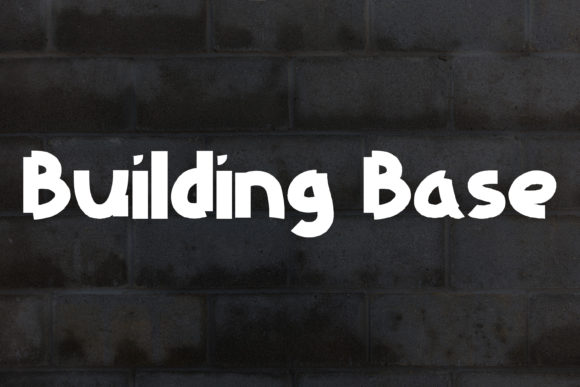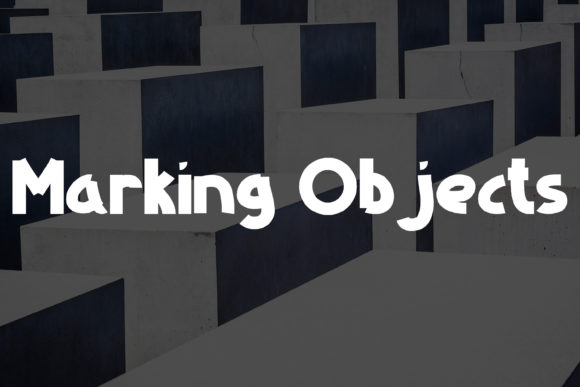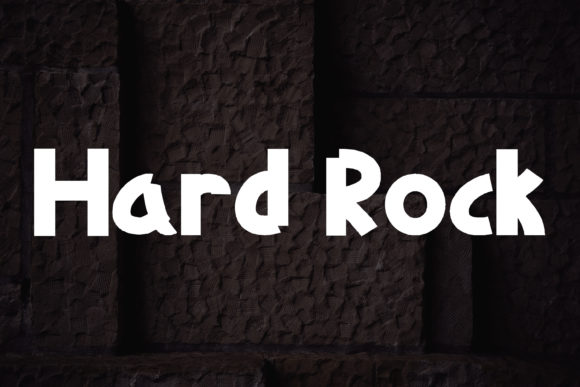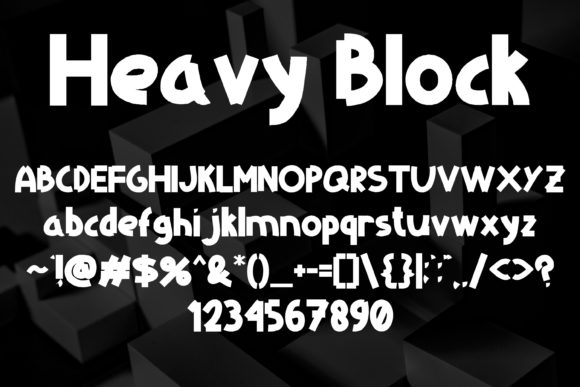
Introducing Heavy Block Font: The Ultimate Display Font for Stunning Designs
Are you tired of using the same old fonts for your designs? Look no further! Heavy Block Font is a cool, chunky lettered display font that’s sure to take your designs to the next level. With its bold and eye-catching style, this font is perfect for creating stunning posters, flyers, and prints that will grab attention and leave a lasting impression.
What is Heavy Block Font?
Heavy Block Font is a display font designed to make a statement. Its chunky letters and bold lines make it perfect for headlines, titles, and any other text that needs to stand out. This font is not just a font, it’s a design element that can elevate your entire design and make it more engaging.
Key Features of Heavy Block Font
- Chunky Letters: Heavy Block Font features chunky letters that are perfect for creating bold and eye-catching headlines.
- Cool and Modern Style: This font has a cool and modern style that’s perfect for designs that need to be trendy and up-to-date.
- Highly Versatile: Heavy Block Font can be used for a wide range of designs, from posters and flyers to prints and digital graphics.
- Easy to Read: Despite its bold style, Heavy Block Font is easy to read, making it perfect for designs that need to communicate a message quickly and effectively.
Endless Possibilities with Heavy Block Font
One of the best things about Heavy Block Font is its endless possibilities. This font can be used in a wide range of designs, from:
- Posters: Create stunning posters that grab attention and leave a lasting impression.
- Flyers: Use Heavy Block Font to create eye-catching flyers that promote your business or event.
- Prints: Add a touch of personality to your prints with this bold and chunky font.
- Digital Graphics: Use Heavy Block Font to create stunning digital graphics that stand out from the crowd.
Why Choose Heavy Block Font?
So why choose Heavy Block Font over other fonts? Here are just a few reasons:
- Unique Style: Heavy Block Font has a unique style that’s sure to make your designs stand out.
- High-Quality Design: This font is designed to high-quality standards, ensuring that it looks great in any design.
Tips for Using Heavy Block Font
Here are a few tips for using Heavy Block Font in your designs:
- Use it Sparingly: Heavy Block Font is bold and eye-catching, so use it sparingly to avoid overwhelming your design.
- Pair it with Other Fonts: Pair Heavy Block Font with other fonts to create a unique and interesting design.
Heavy Block Font is a cool, chunky lettered display font that’s perfect for designers and crafters who want to create stunning designs. With its bold and eye-catching style, this font is sure to take your designs to the next level. So why wait? Download Heavy Block Font today and explore its endless possibilities!